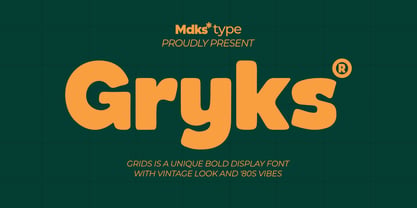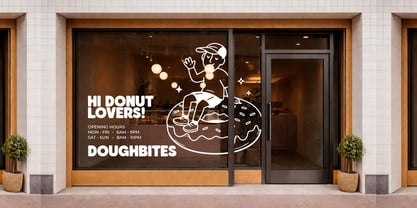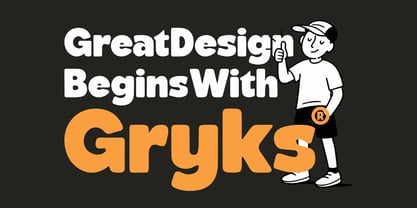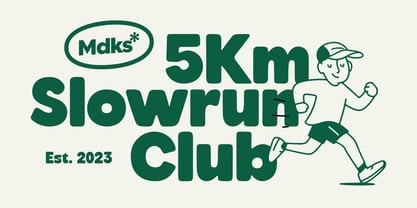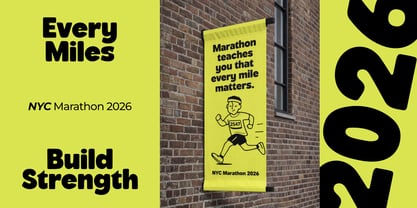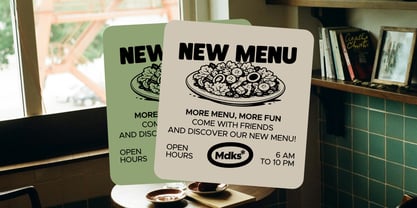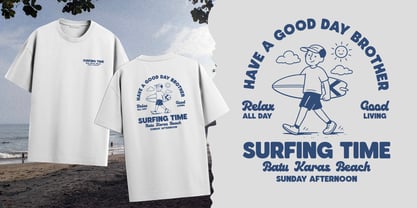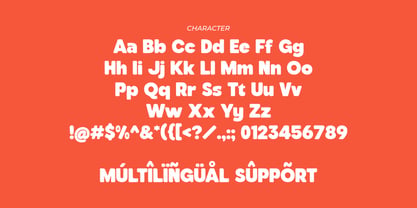
Gryks
by Modikstype
Gryks is a bold and playful display font inspired by vintage typography and the energetic spirit of the 80s. With its thick curves, soft corners, and confident personality, Grids is designed to grab attention and make your message stand out instantly. This typeface works perfectly for branding, posters, packaging, streetwear designs, logos, signage, social media graphics, and any project that needs a strong and friendly visual impact. The rounded shapes and balanced proportions make Grids both powerful and approachable, giving your designs a nostalgic retro vibe while still feeling fresh and modern. Whether you're creating bold headlines, fun merchandise, or eye-catching brand identities, Grids will help your design speak louder and stronger.